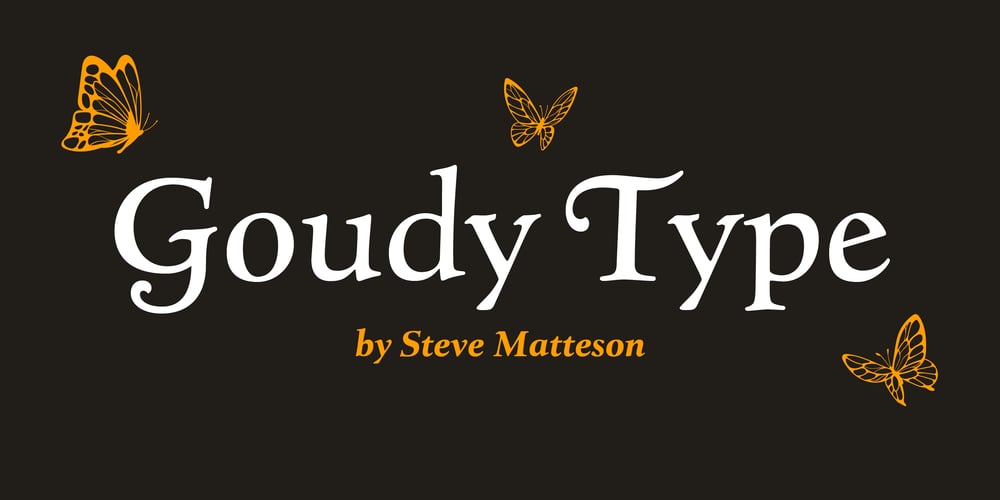
Goudy Type Font Family was designed by Steve Matteson, Frederic W. Goudy and published by Matteson Typographics. Goudy Type contains 4 styles and family package options. Goudy Type was designed by Frederic Goudy for ATF in 1916. He endeavored to create a lively design with some brush-lettering qualities. In his words, he believed he was still attempting to ‘find himself’ as a designer. Thirty years later he was shown the design and could hardly recollect its creation. Steve Matteson has digitized Goudy Type to preserve its place in typographic history.